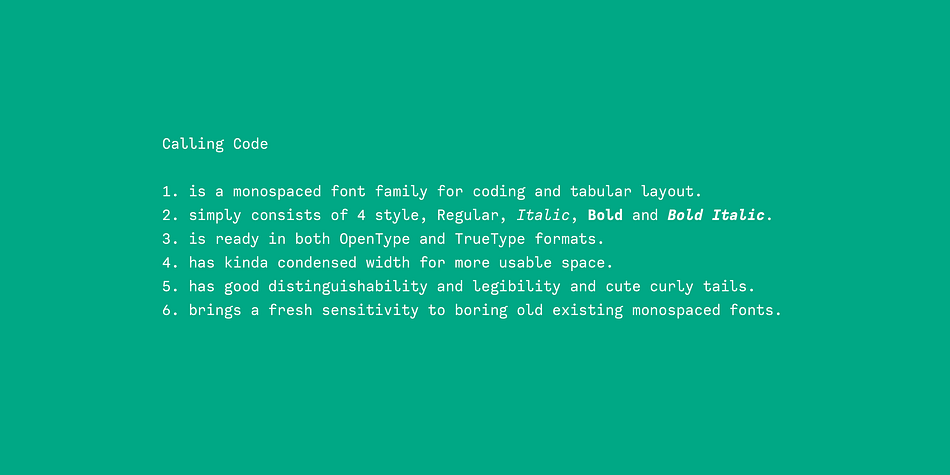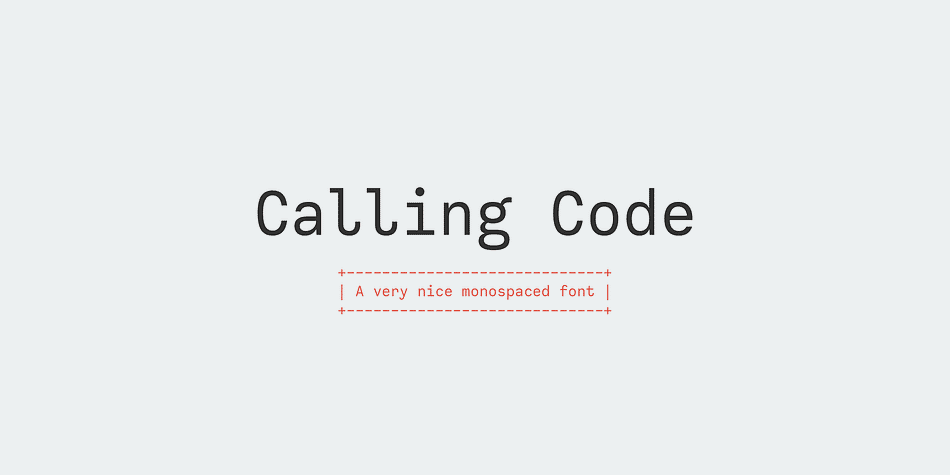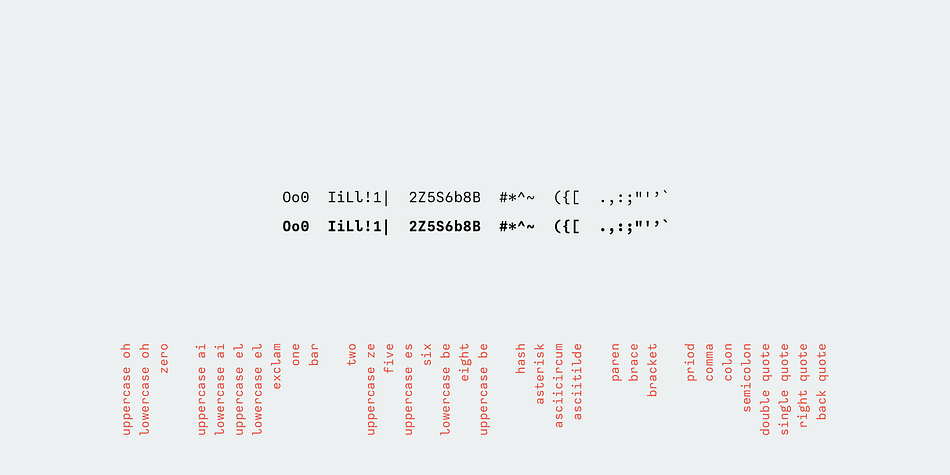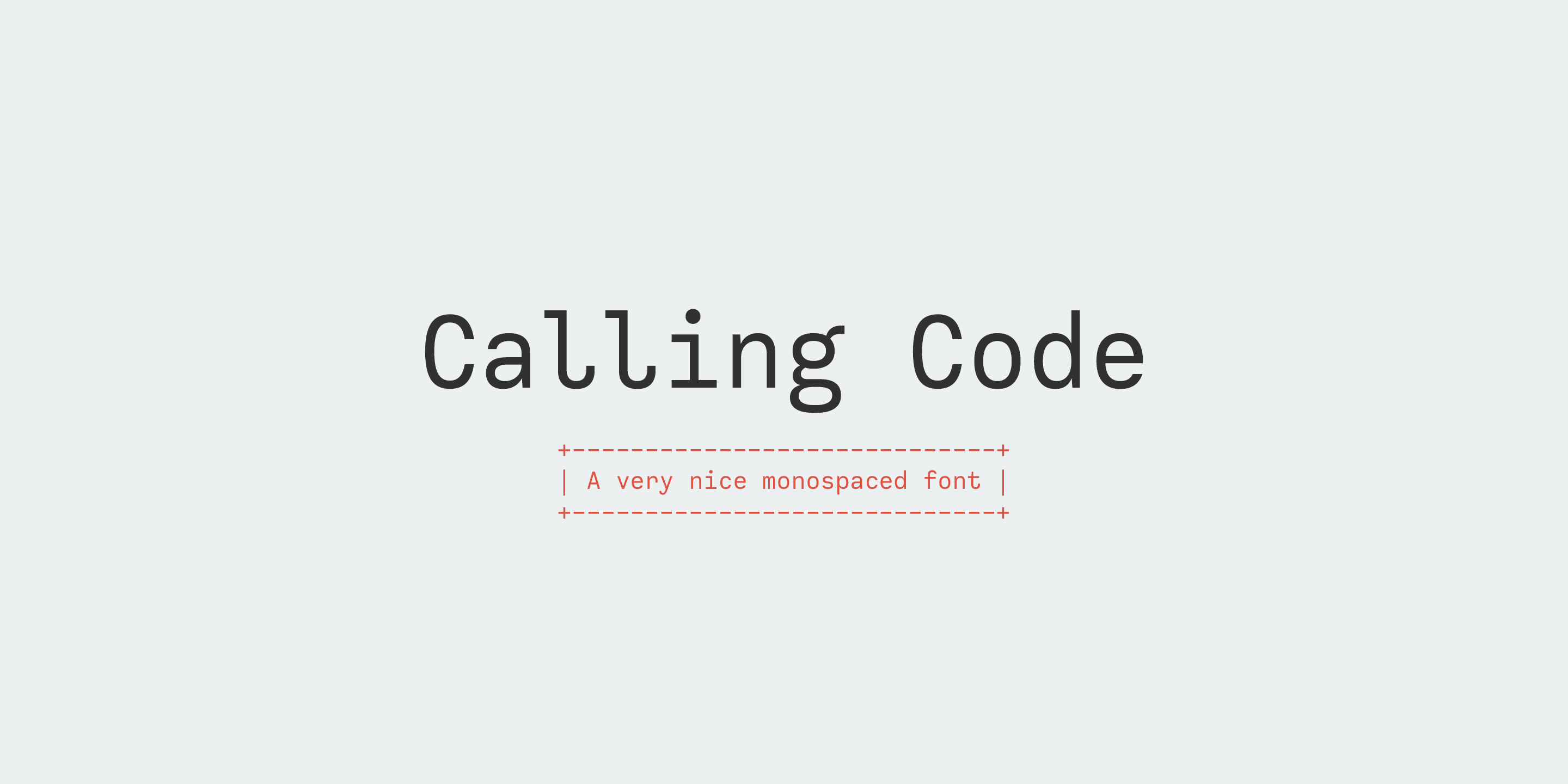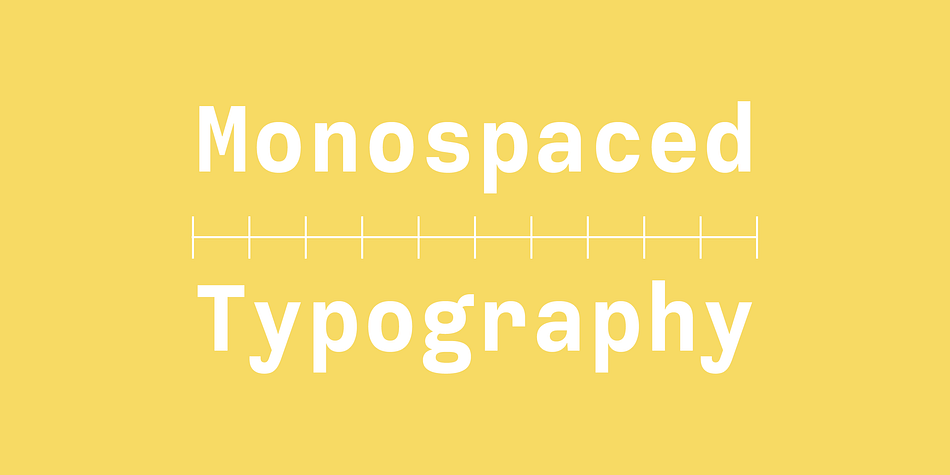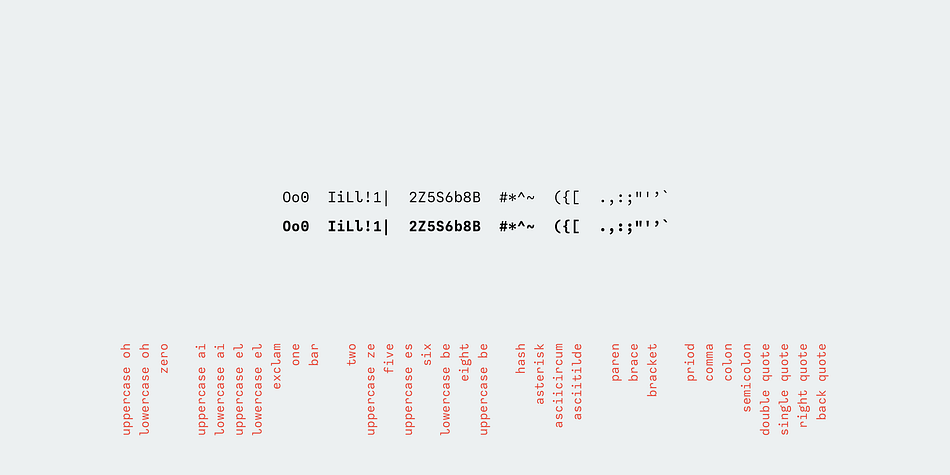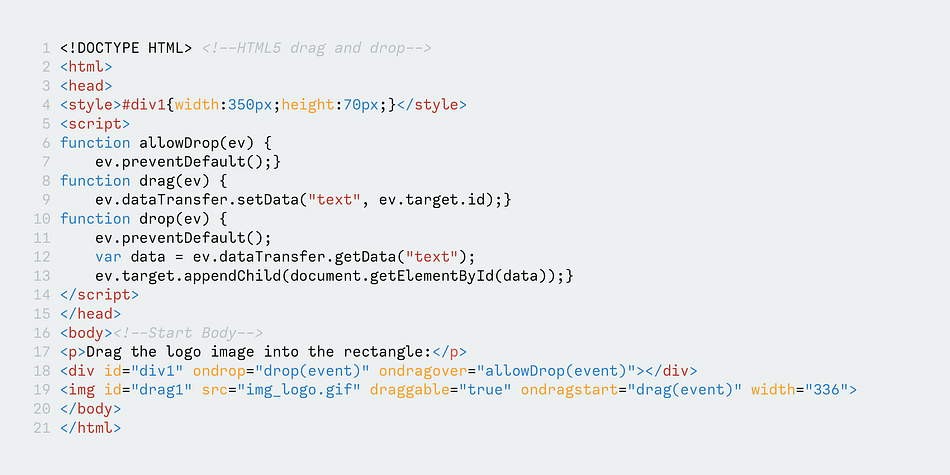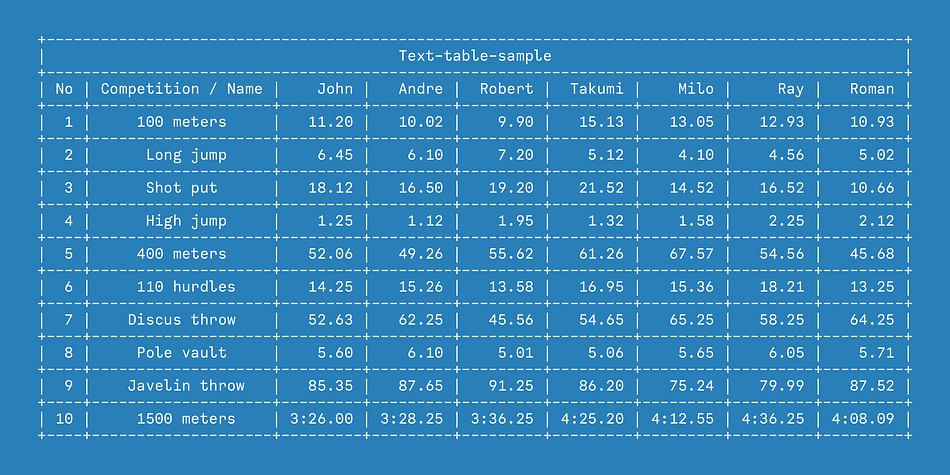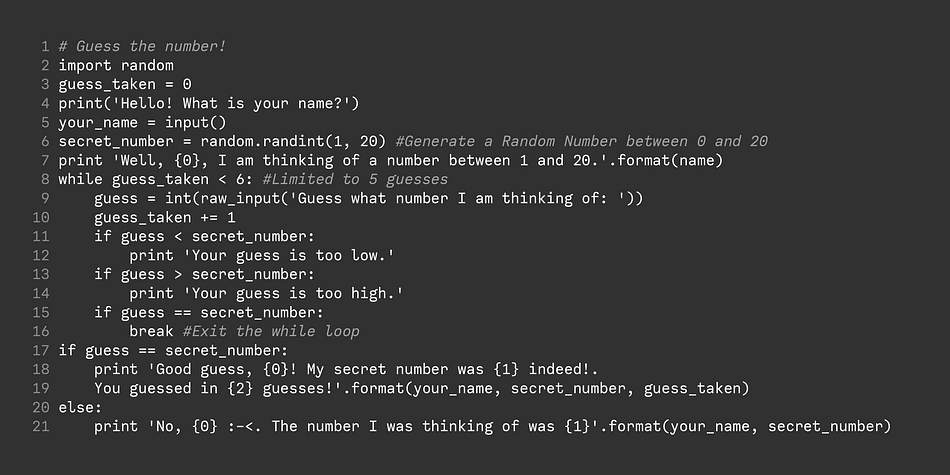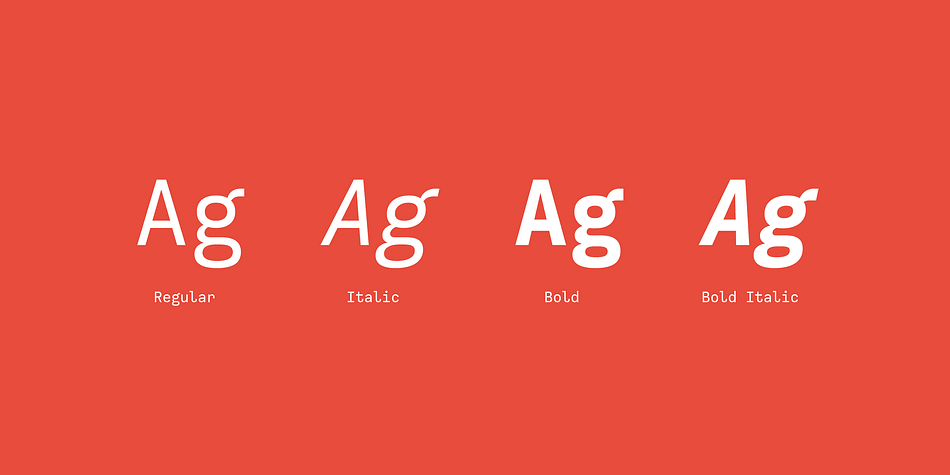
Calling Code is a sans serif font family. This typeface has four styles and was published by Dharma Type.
Calling Code is a very nice monospaced font family for coding and tabular layout. It consists of 4 styles, Regular, Italic, Bold and Bold Italic. It has a slightly condensed width for better usage of space. It has good distinguishability and legibility with cute curly tails. Calling Code will bring a fresh sensitivity to boring old existing monospaced fonts.